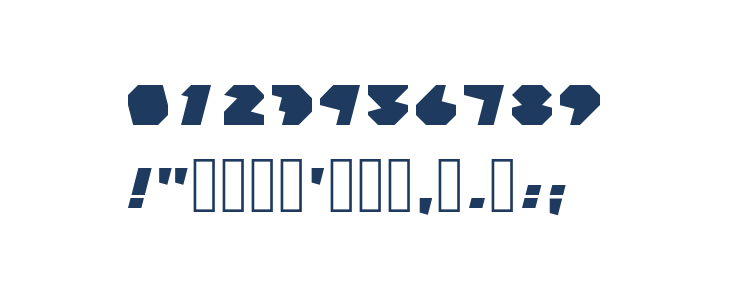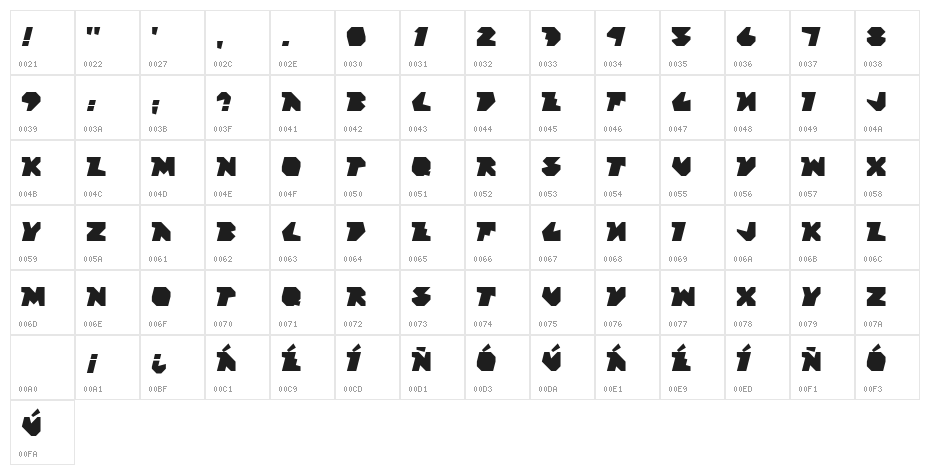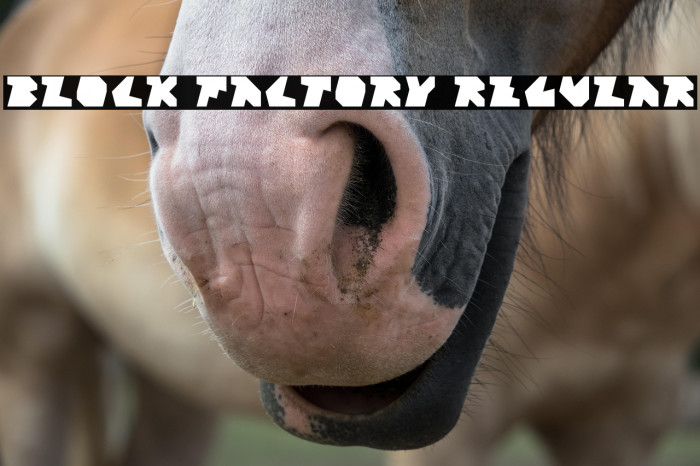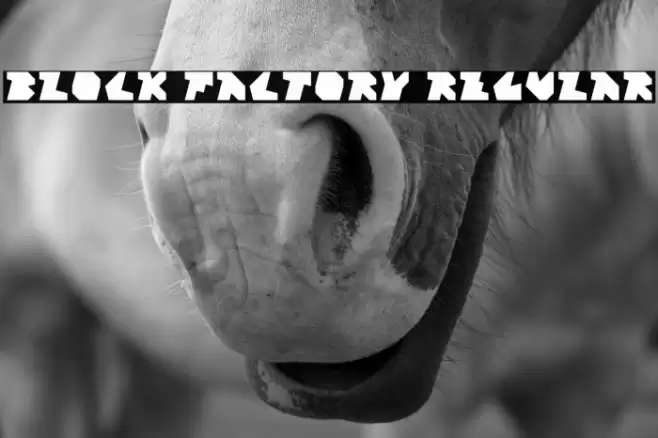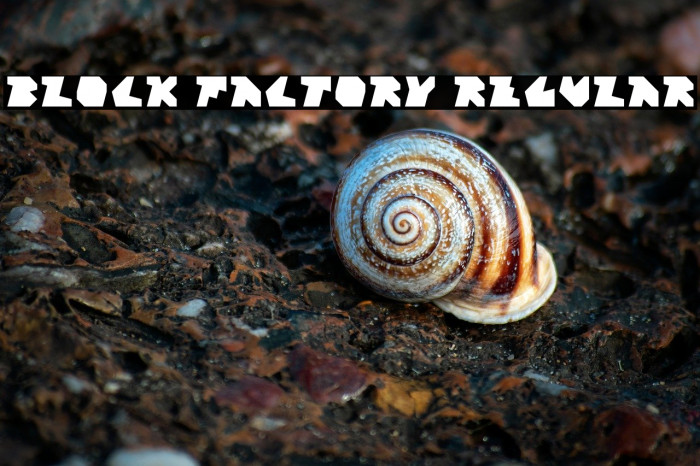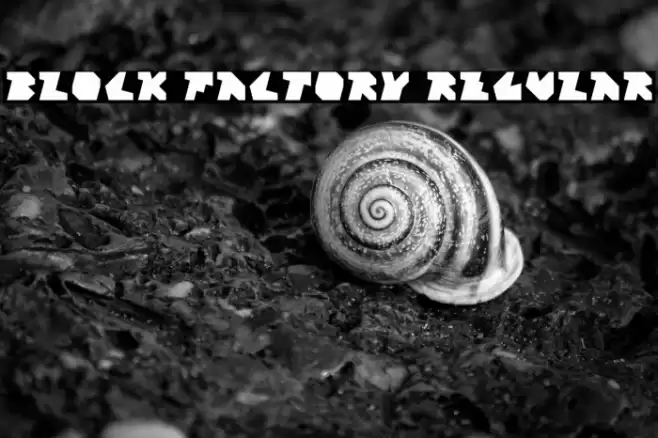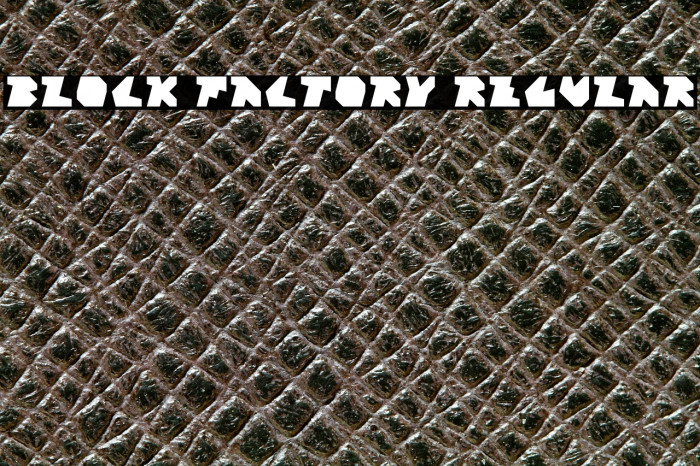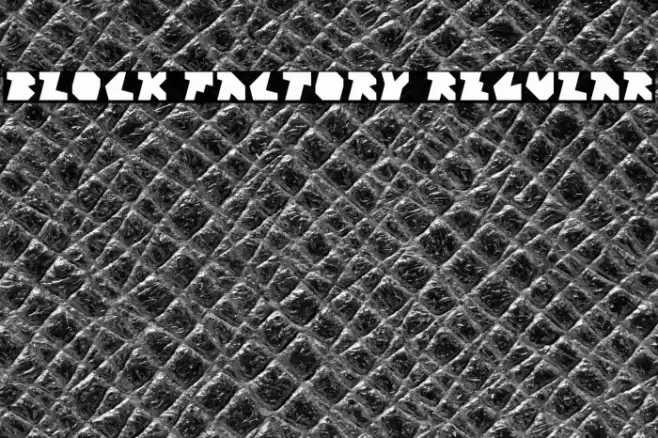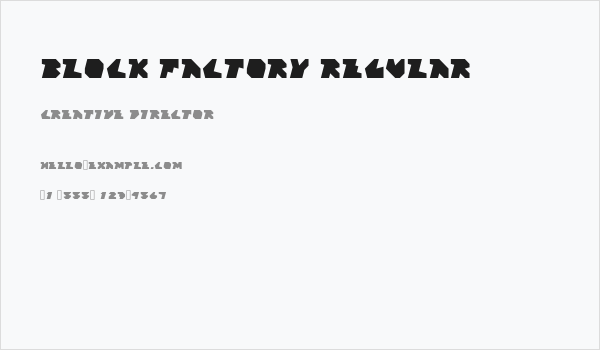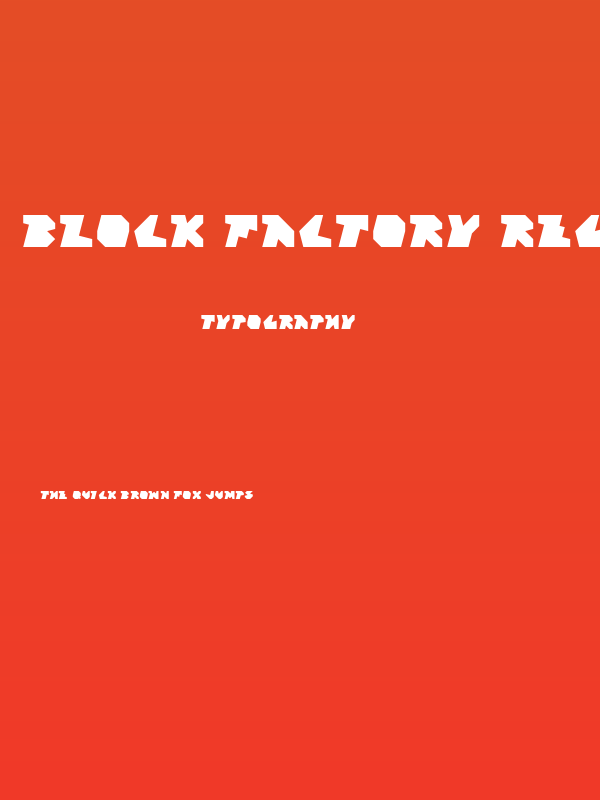
Block Factory Regular Font
Block Factory Regular Description
This font features a bold, geometric design with sharp angles and block-like structures. Each character is crafted with a distinct, edgy style that gives it a strong, impactful presence. The uppercase and lowercase letters maintain a consistent weight and width, creating a uniform appearance. The numbers and special characters follow the same design principles, ensuring cohesion across all elements. The font's unique aesthetic makes it suitable for projects that require a modern and assertive look.
| Proposed Projects | Ideal for branding, posters, headlines, and any design work that requires a bold statement. |